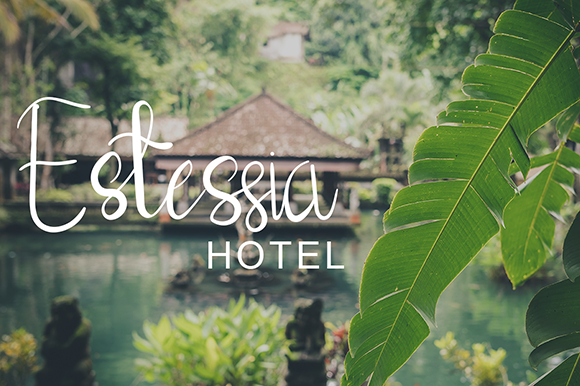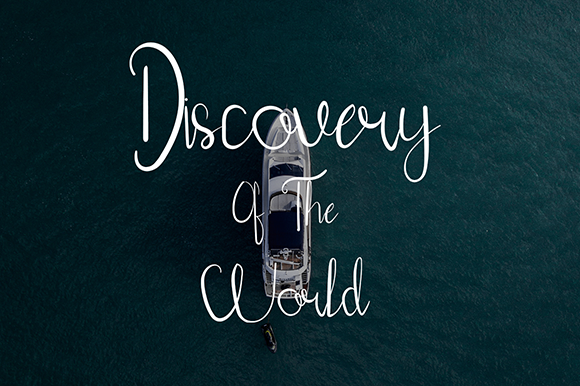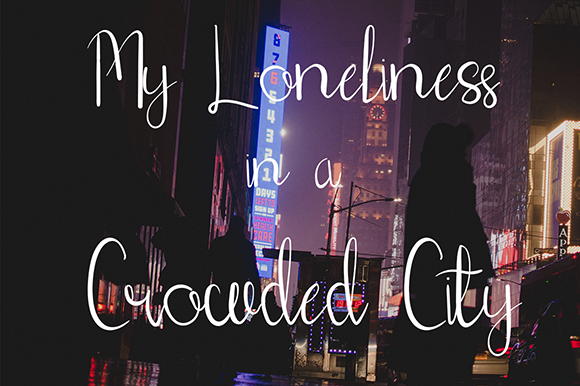
Introduction to Roxxette Font
Remember the moment when you’re browsing through a beautiful photography book and you’re captivated by the elegant signature of the photographer? That’s where the magic of the Roxxette Font comes in – a luxury script font that’s perfect for adding a touch of sophistication to your creative projects. As a designer, you’re always on the lookout for high-quality design resources that can elevate your work and make it stand out from the crowd.
The Roxxette Font is a valuable asset for any designer, whether you’re working on a photography project, creating labels for a new product, or designing a beautiful quote for a wall art. With its elegant script style and transparent background, this font is a great choice for designers who want to add a touch of luxury to their work. And the best part? You can download it for free and start using it in your next creative project.
Key Features of Roxxette Font
- High-quality font design with a unique, creative style suitable for various design projects.
- Transparent background, allowing for seamless integration with different design elements and backgrounds.
- Designed as a versatile design resource, ideal for use in logos, branding materials, and other creative projects.
- Perfect for designers looking for a unique, high-quality font to elevate their creative project.
Honest Review: Roxxette Font
I recently stumbled upon the Roxxette Font while searching for a design resource for a creative project, and I must say I was impressed. This free download is a high-quality font that can add a touch of elegance to any design.
- Unique and stylish design that sets it apart from other fonts
- High-resolution images that ensure a clear and crisp display
- Transparent background option that makes it easy to use on any background
- Compatible with a variety of design software and operating systems
- Not as versatile as some other fonts, may not be suitable for all design projects
- Limited character set, may not have all the symbols and glyphs you need
- May not be as widely recognized or used as some other popular fonts
Overall, I’m impressed with the Roxxette Font and would recommend it for any design project where a high-quality, unique font is needed. With its transparent background option and high-resolution images, it’s a great choice for designers looking to add some creativity to their work.
The Roxxette Font is a versatile and high-quality design resource ideal for creative projects that require a touch of elegance. With its transparent background, this font is perfect for overlaying on images or using as a standalone element in your design.
Tips for Getting the Most Out of the Roxxette Font
For optimal results, use the Roxxette Font in conjunction with a high-contrast background to make the text stand out. You can also experiment with different font sizes and styles to add visual interest to your design.
Common Use Cases for the Roxxette Font
The Roxxette Font is ideal for use in a variety of creative projects, including: